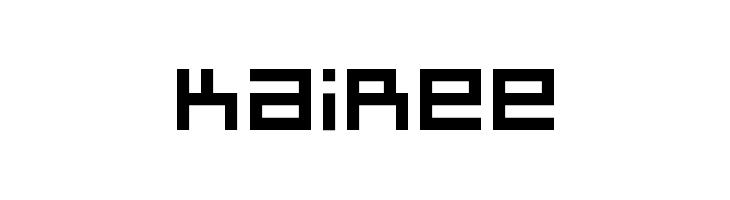
( Fonts by Iconian Fonts - Daniel Zadorozny )
Bold, geometric font with a shadow effect and italic style.
A bold, modern typeface with thick, uniform strokes and clean lines.
A bold, playful font with a 3D shadow effect and rounded, irregular characters.
( Fonts by Danilo Miguel )
A music-themed decorative font with elements of musical notation.
( Fonts by Des Gomez )
A playful, handwritten font with rounded edges and whimsical heart motifs.
( Fontomen - www.algonet.se/~j-j/ )
A casual, handwritten font with fluid and dynamic strokes.
A bold, hand-drawn font with a playful and energetic style.
A bold, geometric font with rounded edges and a futuristic style.
A bold, playful font with a hand-drawn, artistic style.